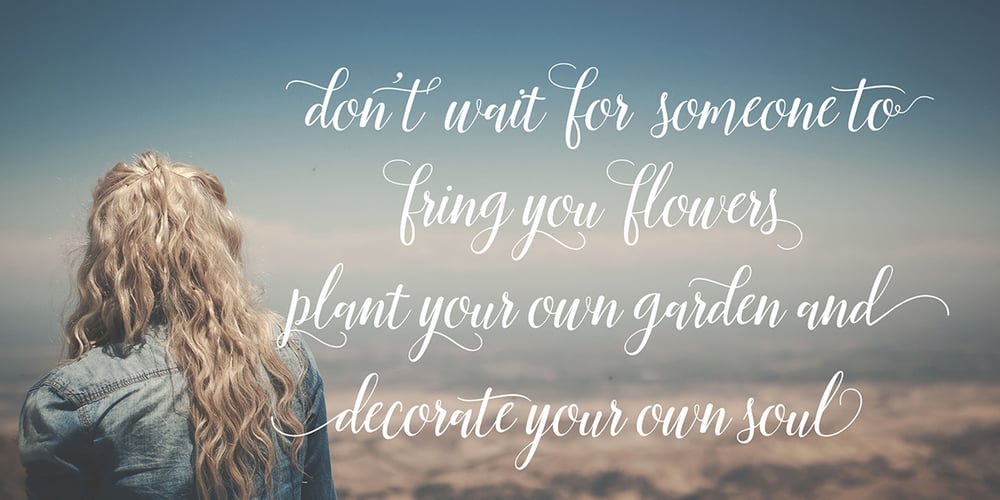
Munira Script Font Family was designed by Akmal Yusar and published by Picatype. Munira Script contains 1 styles and family package options. Munira Script is a modern calligraphy design. This font is casual and pretty with swashes. It can be used for various purposes. such as logos, product packaging, wedding invitations, branding, headlines, signage, labels, signature, book covers, posters, quotes and more. Munira Script features OpenType stylistic alternates, ligatures and International support for most Western Languages. To enable the OpenType Stylistic alternates, you need a program that supports OpenType features such as Adobe Illustrator CS, Adobe Indesign & CorelDraw X6-X7, Microsoft Word 2010 or later versions. How to access all alternative characters using Adobe Illustrator: https://www.youtube.com/watch?v=XzwjMkbB-wQ How to access all alternative characters, using Windows Character Map with Photoshop: https://www.youtube.com/watch?v=Go9vacoYmBw Munira Script is coded with PUA Unicode, which allows full access to all the extra characters without having special designing software. Mac users can use Font Book , and Windows users can use Character Map to view and copy any of the extra characters to paste into your favourite text editor/app. If you need help or have any questions, please let me know. I’m happy to help ๐ Thanks & Happy Designing!